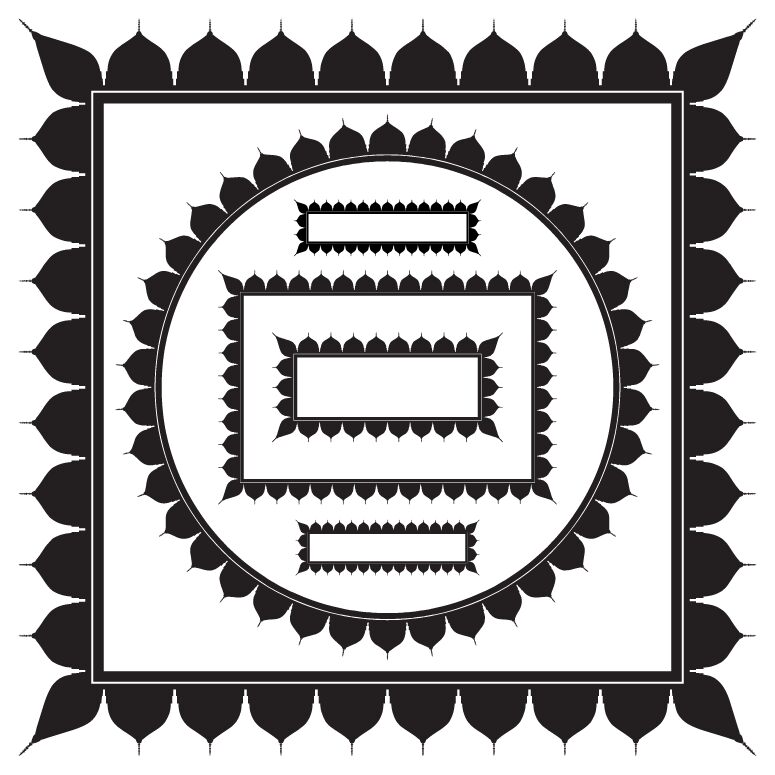
Borders islamic 1444
Borders Islamic 1444 by Elharrak elegantly marries intricate Islamic artistry with utilitarian border frames, creating a visually captivating dingbat font. Each character is thoughtfully crafted, featuring dense geometric patterns reminiscent of traditional Islamic design. The bold and striking outlines lend each frame an air of grandeur, perfectly suited to accentuating text or images with a touch of cultural flair.
Ideal for projects that demand an ornate and structured aesthetic, Borders Islamic 1444 finds its place effortlessly in invitations, certificates, book covers, and decorative printables. Whether used to highlight important messages or to provide a stylish enclosure for focal points in design compositions, this font's commanding presence ensures it stands out in any creative application.